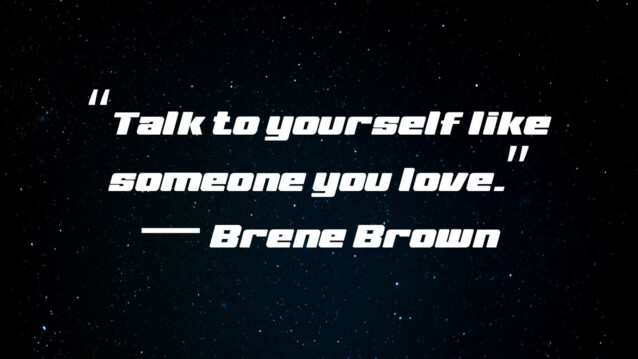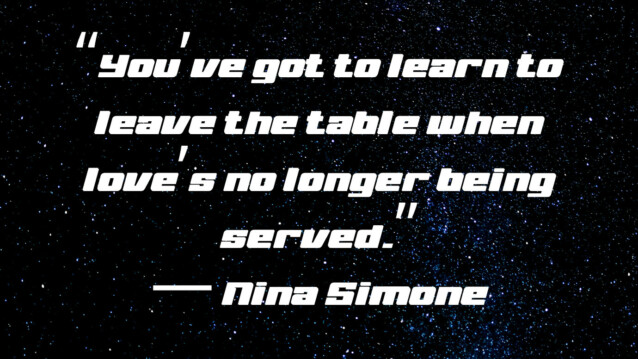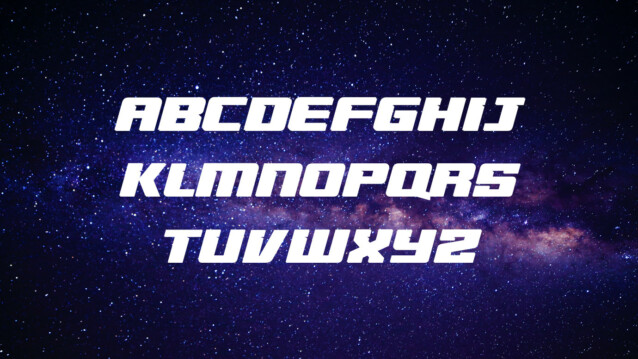
VelvetQuilt Display Font
VelvetQuilt Display Font is a simple and elegant display font with an undeniably clean feel. With its neat and beautiful arrangement of letters, this typeface will look outstanding in both formal and non-formal designs.
If you are looking for the typeface for your branding logos or want to make the perfect gym or stylish poster, VelvetQuilt Display Font is a great choice for you.